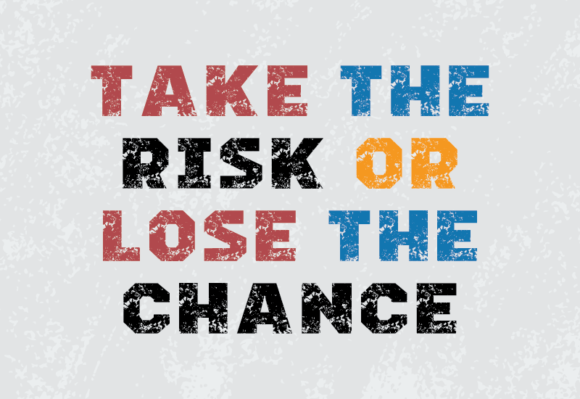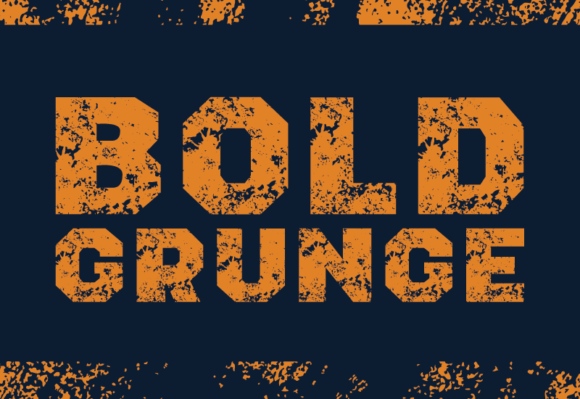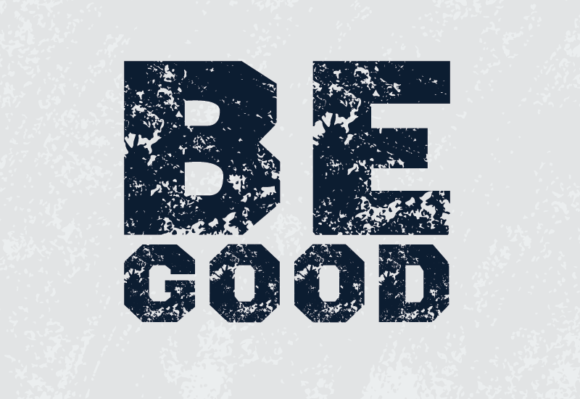
Bold Grunge Font
Indulge in uniqueness with the ‘Bold Grunge’ sans-serif font that radiates distinction. Noted for its daring and distinctive aesthetic, Bold Grunge transcends the realms of simple bold typography. Its jagged lines bear a rustic texture, fostering a sense of resilience and defiance.With its bold demeanor unafraid to stand apart, Bold Grunge provides an ideal textual contrast for ventures that relish audacious ventures. Imbued with a rebellious spirit, Bold Grunge transforms your visual narrative with edgy elegance.